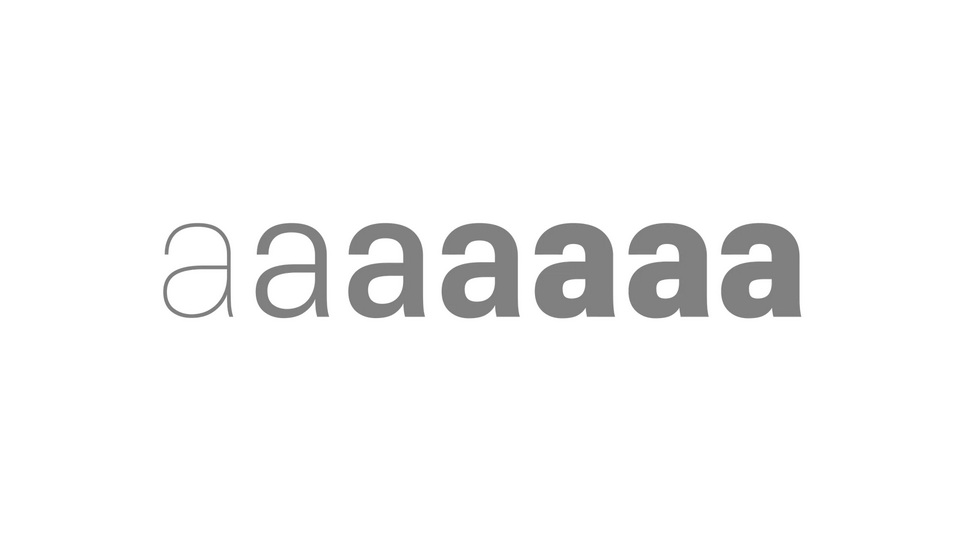
Download Akt font, a versatile neo-grotesque typeface that balances timeless simplicity with modern functionality, making it suitable for a wide variety of design applications.
Designer: Dima Grenev